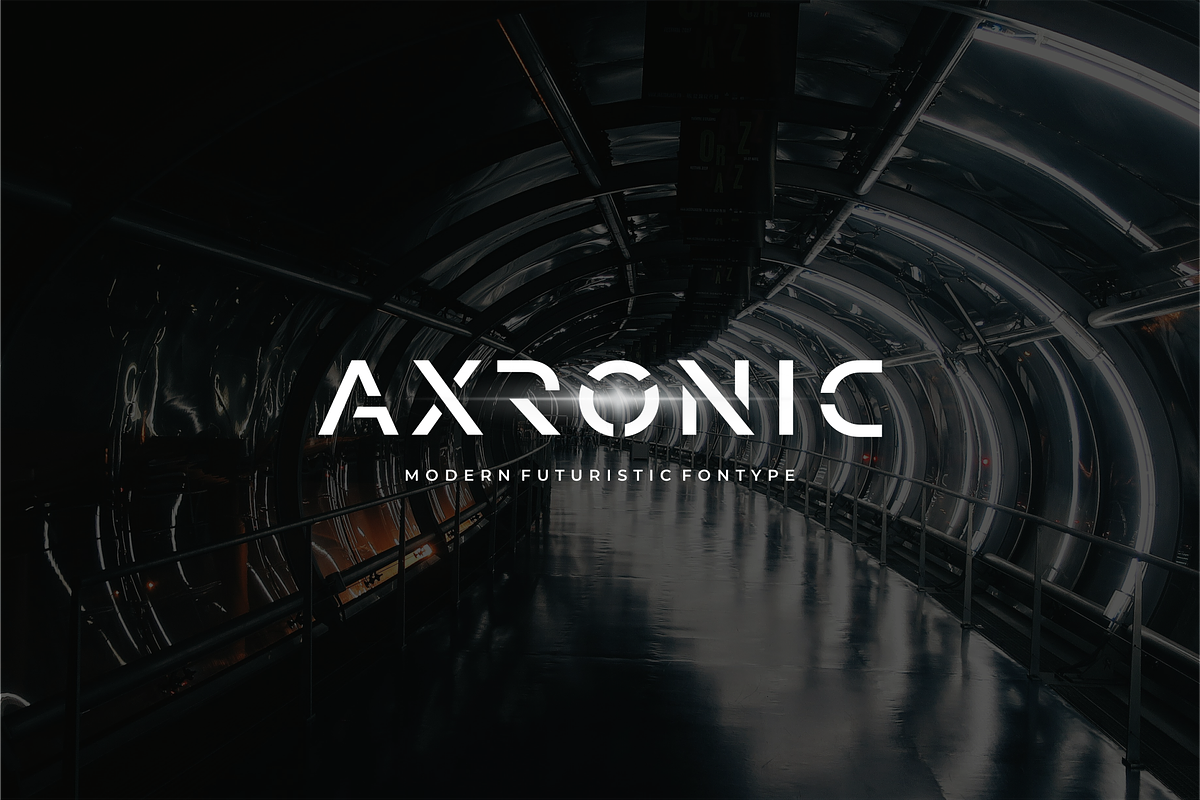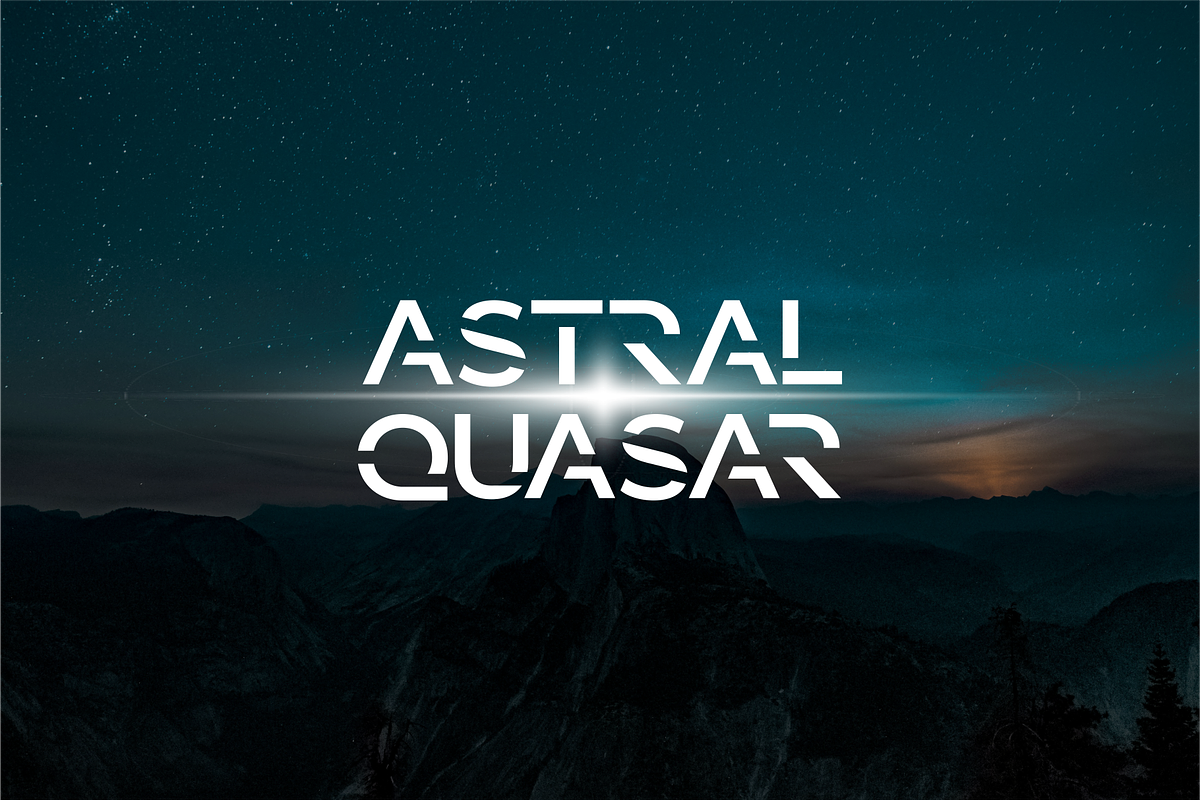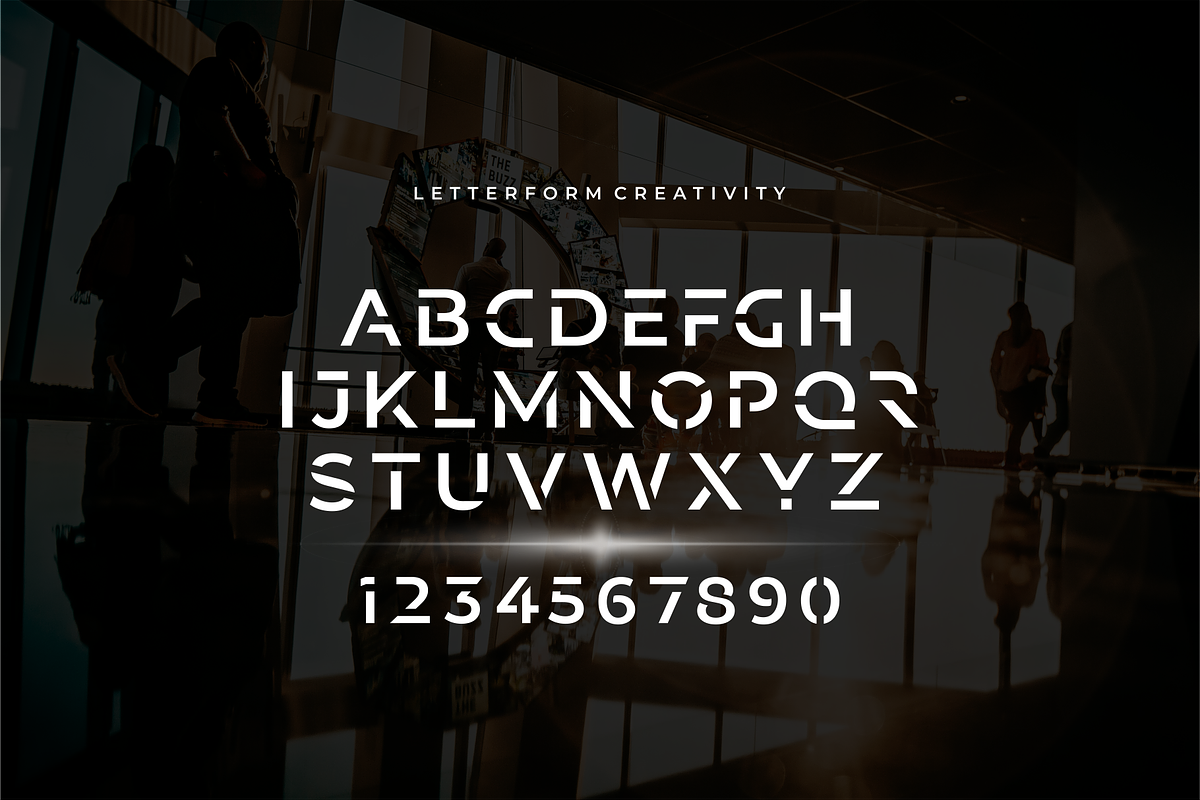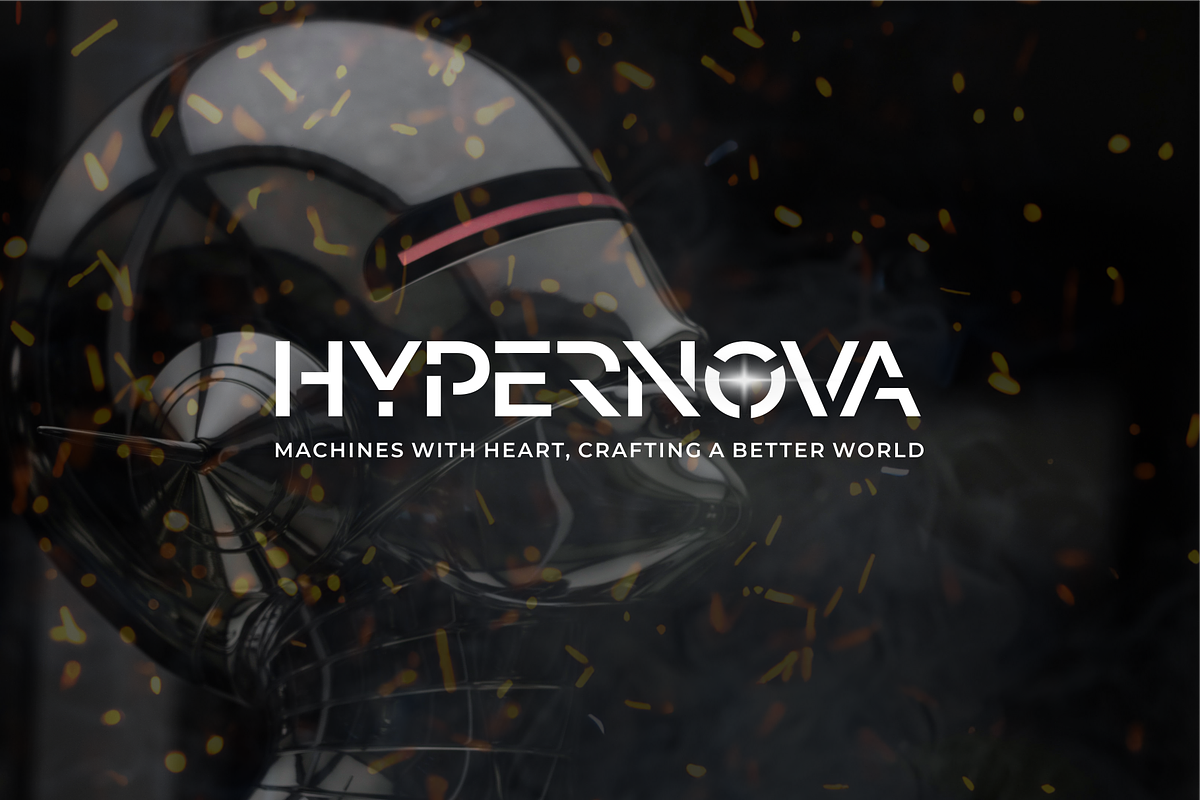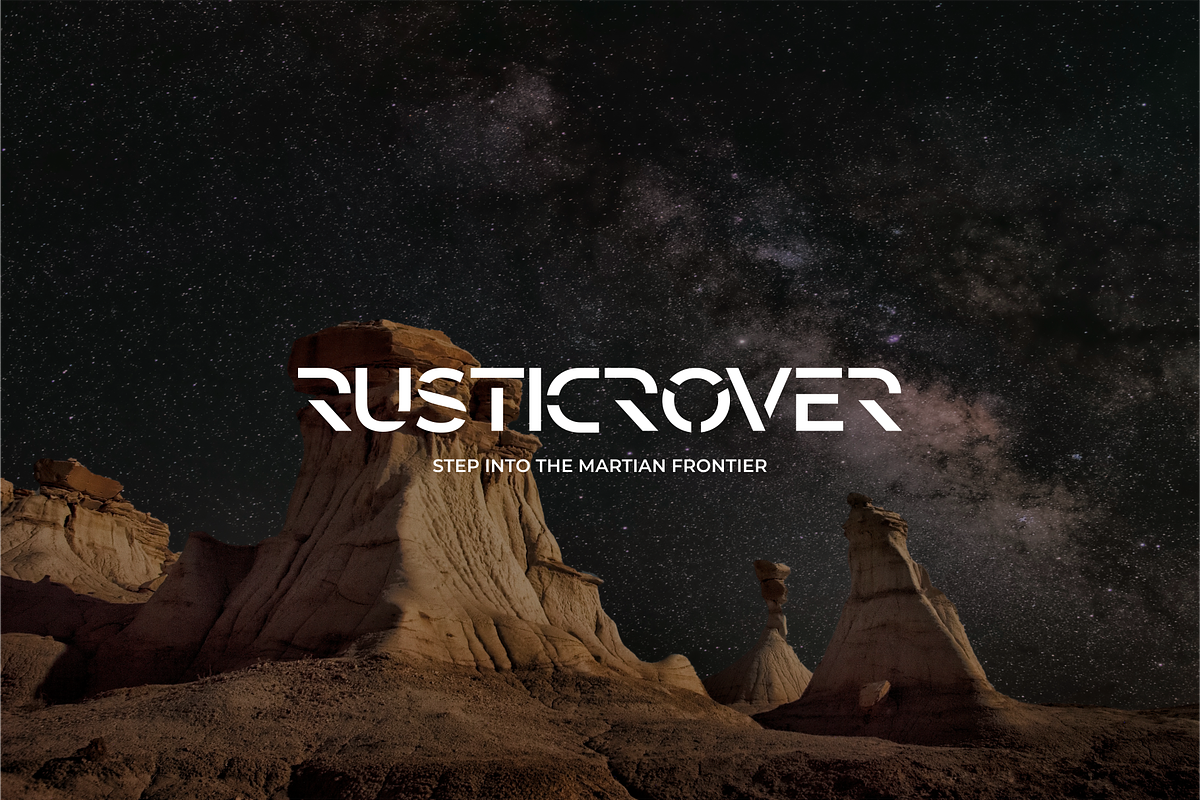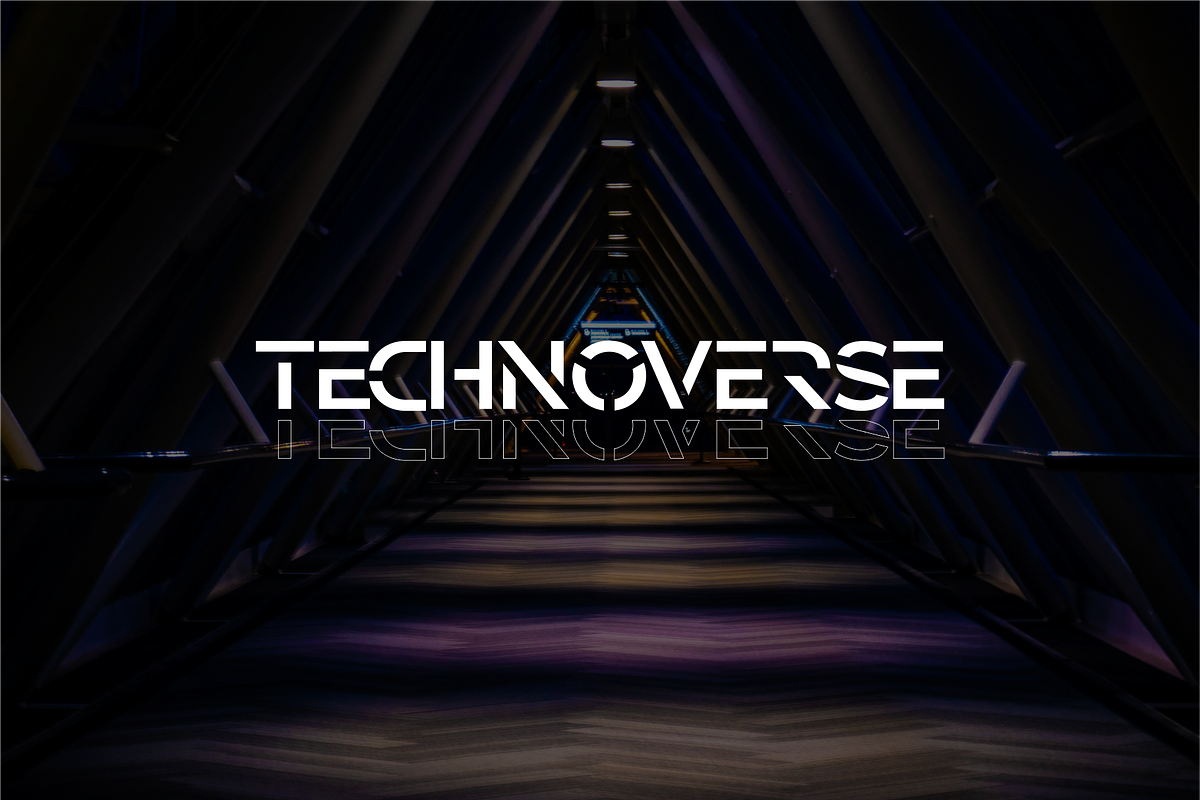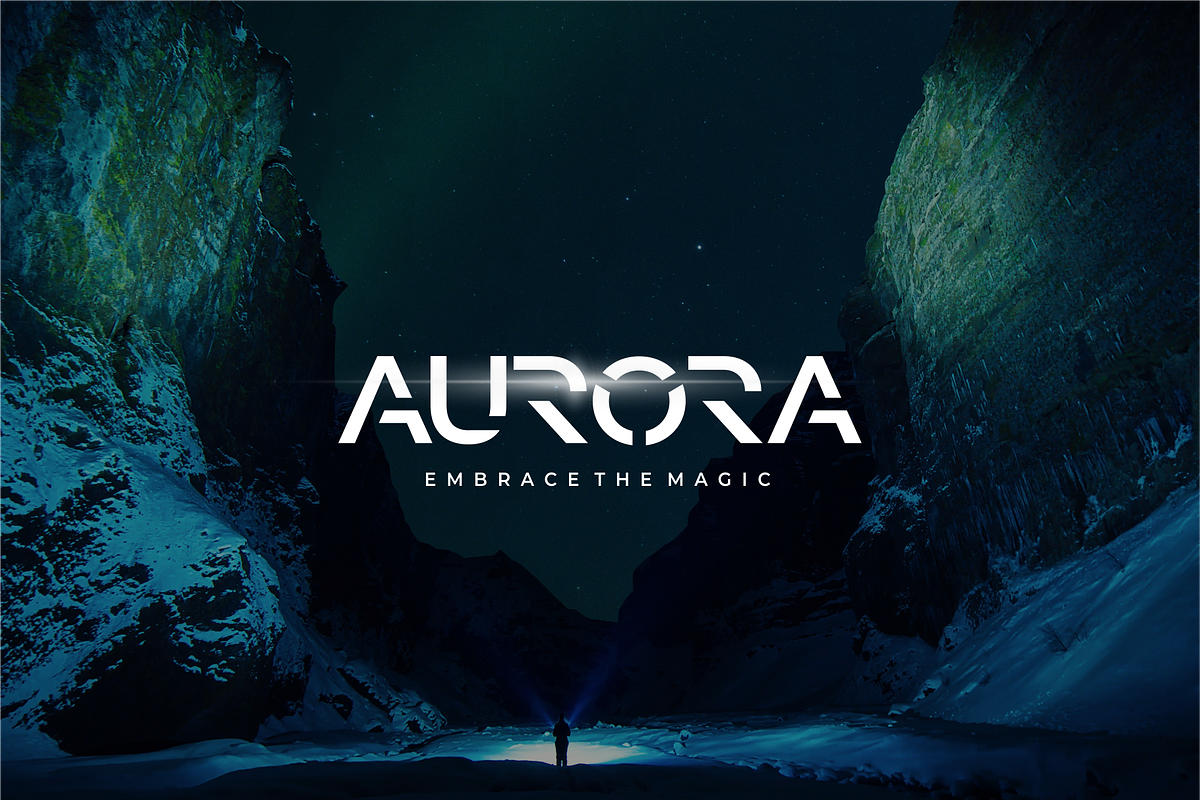
AXRONIC - Modern Futuristic Fontype
AXRONIC - Modern Futuristic Fontype with a futuristic edge, geometric corners, perfect for many project: fashion, magazines, logo, branding, title quotes, blog header, poster, advertisements, postcard, book, websites, etc.